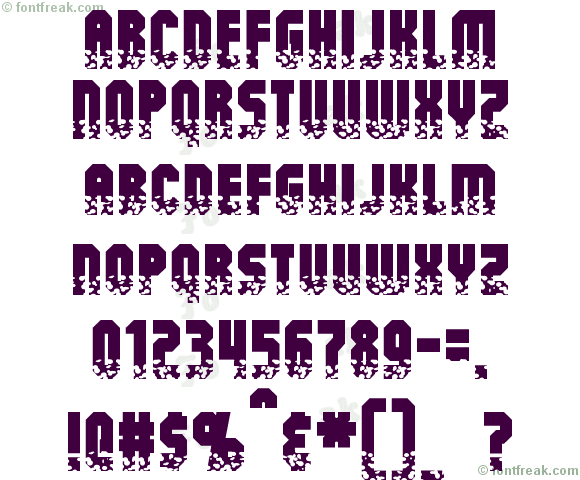
Alpha Mutation
About Alpha Mutation
Alpha Mutation, designed by Neale Davidson in 2012, is a striking display font that captures attention with its unique visual characteristics. This font features a bold, geometric style that blends the realms of modernity and creativity. The stroke weight varies significantly, providing a dynamic contrast that enhances its overall aesthetic. The letters exhibit an innovative, fragmented design, with elements that appear to mutate or evolve, adding a playful yet sophisticated touch. The spacing between characters contributes to its readability, making it suitable for various applications.
Alpha Mutation is particularly versatile in its use cases. It shines in poster designs, where its distinctive look can effectively draw in viewers. This font is also ideal for branding projects, especially for tech startups or creative agencies looking to convey a sense of innovation and uniqueness. Additionally, it works well in merchandise designs, such as T-shirts or hats, where a bold statement is desired. Event flyers and social media graphics can benefit from its eye-catching style, ensuring that the message stands out amidst the digital noise.
What sets Alpha Mutation apart is its ability to combine boldness with a sense of artistic flair. This font not only commands attention but also evokes curiosity, making it an excellent choice for anyone looking to elevate their design work. For those interested, the Alpha Mutation font free download is readily available, allowing users to explore its potential in their creative endeavors.